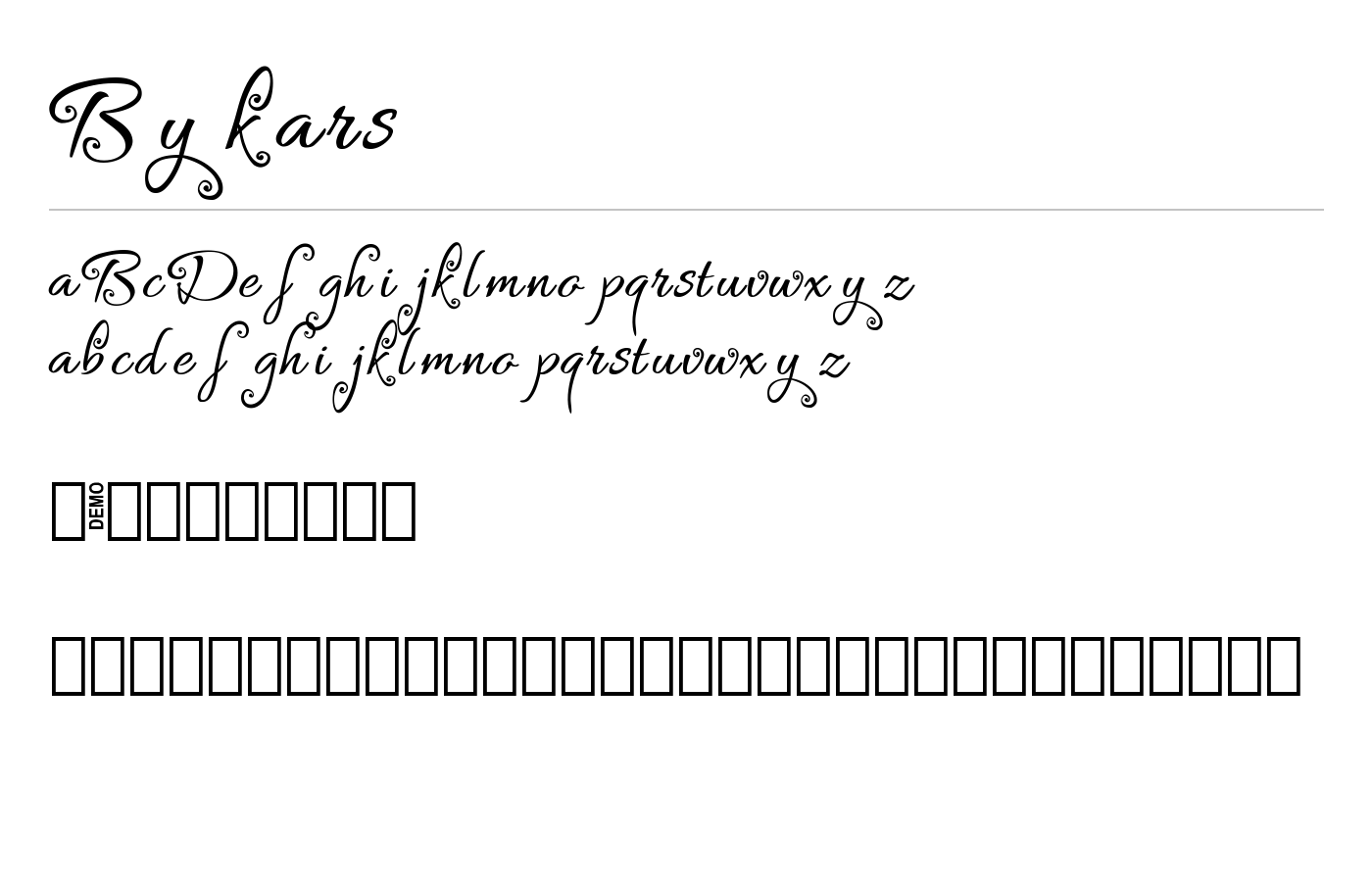
Bykars is a delicate script font with elegant, flowing strokes and whimsical curls that add a touch of charm and sophistication. Its thin, graceful letterforms create a refined and artistic feel, making it ideal for invitations, greeting cards, and branding that seeks a vintage or romantic vibe. This font works best in decorative display uses where its intricate details can shine and inspire a sense of personal touch and creativity.
Bykars Font